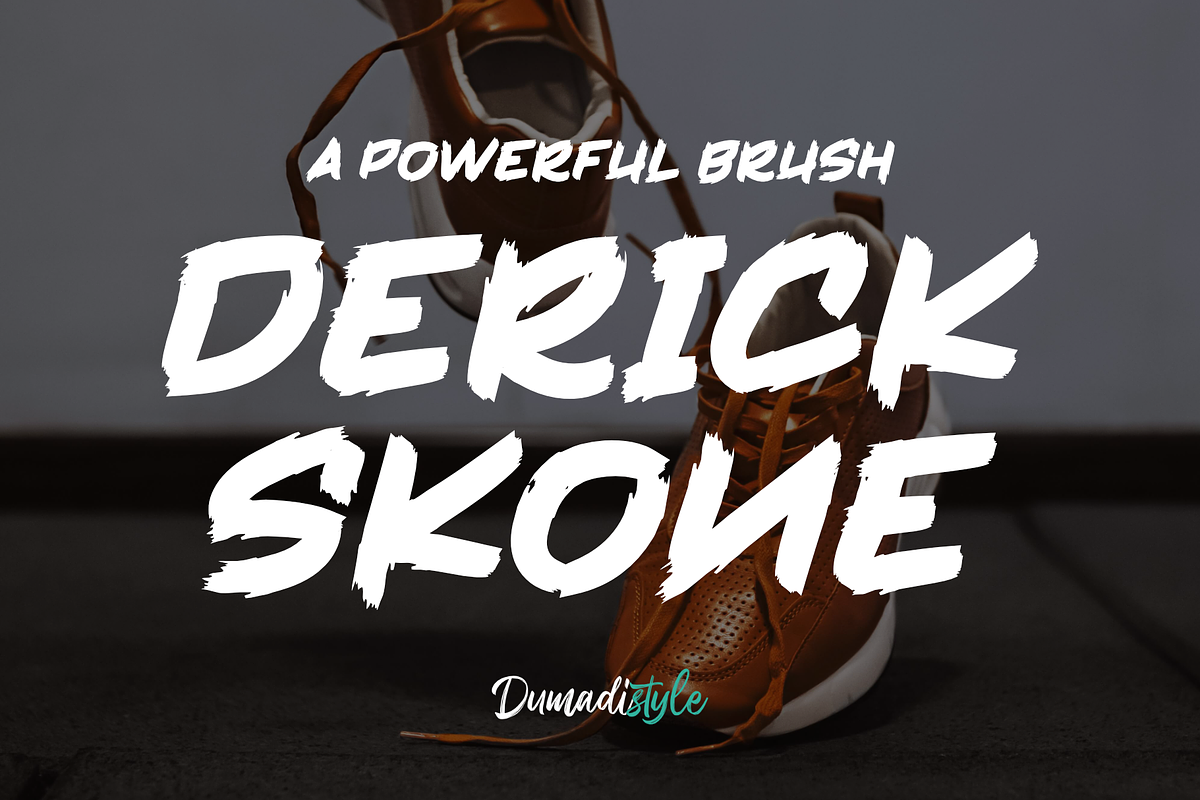
Derrick Skone – Brush Font Free Download is a bold and expressive typeface that captures the raw energy of hand-painted brush strokes. With its dynamic movement, rough edges, and rebellious vibe, this font is perfect for music posters, streetwear branding, action-themed graphics, YouTube thumbnails, and edgy merchandise.
Its aggressive yet artistic appearance makes it ideal for grabbing attention and injecting personality into any design. Whether you're working on high-impact headlines or creative visuals with attitude, Derrick Skone delivers power and style.
Designers love Derrick Skone for its handcrafted texture and strong presence across both digital and print projects. Want to make a loud and fearless statement? Download Derrick Skone – Brush Font Free Download and unleash bold creativity in your next design.